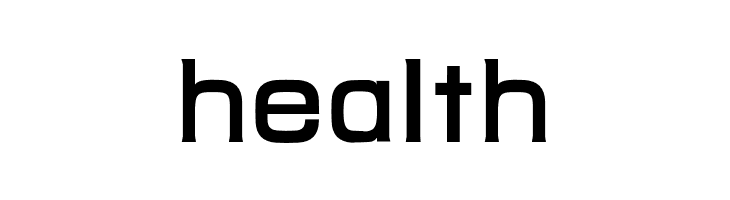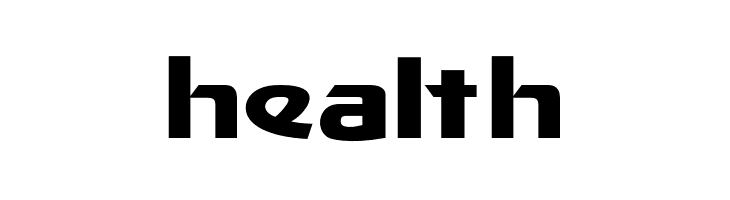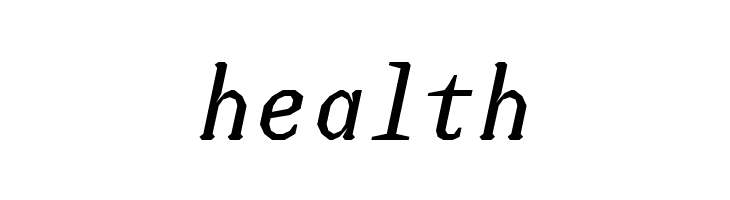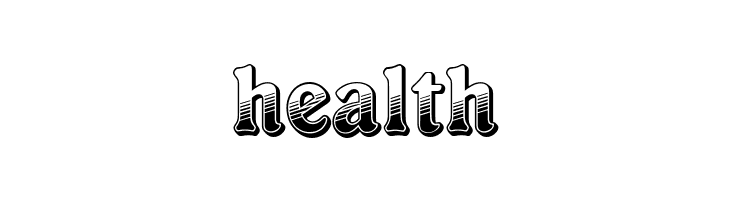
• JUstice Mono Bold
A bold, monospaced font with a structured and mechanical appearance.
• JUstice Mono BoldOblique
A bold, oblique, monospaced font with a modern and dynamic style.
• JUstice Mono Oblique
A monospaced, oblique font with a modern and dynamic style.
• JUstice Mono Title
A bold, monospaced font with slab serifs and a vintage-modern appeal.
• Kabarett Decor DEMO Thin
A bold, decorative font with a vintage, three-dimensional style.
• Kabarett Simple Thin
A playful, decorative font with wavy edges and a handcrafted feel.
• Kaichin ExtraBold
A bold, geometric font with sharp, angular strokes and a modern aesthetic.
• Kaileen
A playful, hand-drawn font with whimsical stick figure illustrations integrated into the letters.
• Kakushibun Normal
A bold, geometric font with a modern and clean aesthetic.
• Kalos Sans Book
A modern, geometric sans-serif font with a clean and balanced design.